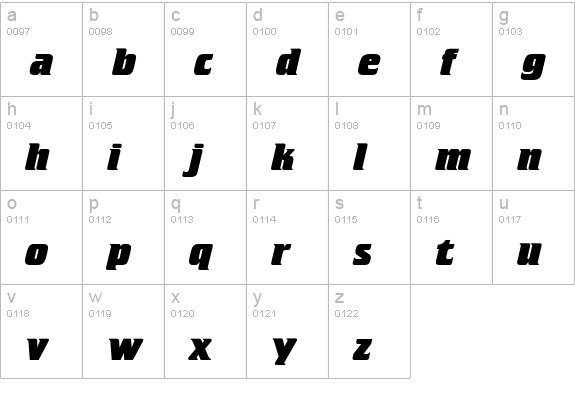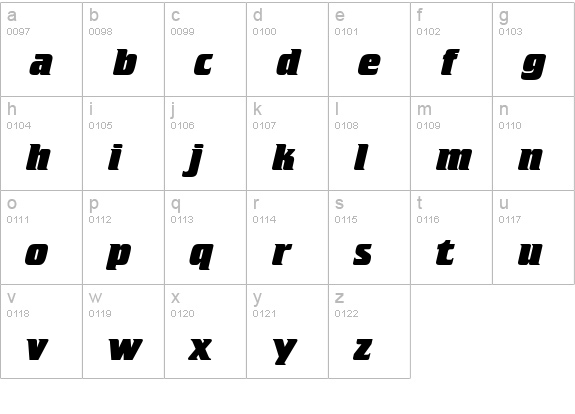
Crillee Extra Bold Italic Plain is a strong, high-contrast, italic variant in the Crillee typeface family \xE2\x80\x94 well suited to headlines, attention-grabbing titles, and strong calls-to-action.
Crillee Extra Bold Italic Plain is a striking and versatile font that exudes confidence and modernity. Its bold and italicized design adds a touch of sophistication to any project, making it perfect for headlines, titles, and branding materials. The strong, distinct letterforms of Crillee Extra Bold Italic Plain make a bold statement while maintaining readability and style. This font is an essential addition to any designer's toolkit, offering a unique and eye-catching option for various design projects. Whether you're creating a poster, logo, or website, Crillee Extra Bold Italic Plain will help your text stand out and make a lasting impression. The best part? Crillee Extra Bold Italic Plain is available for free download at FontsMarket.com, allowing you to access this professional and high-quality font without any cost. Download the font today and elevate your designs with the bold and stylish Crillee Extra Bold Italic Plain.